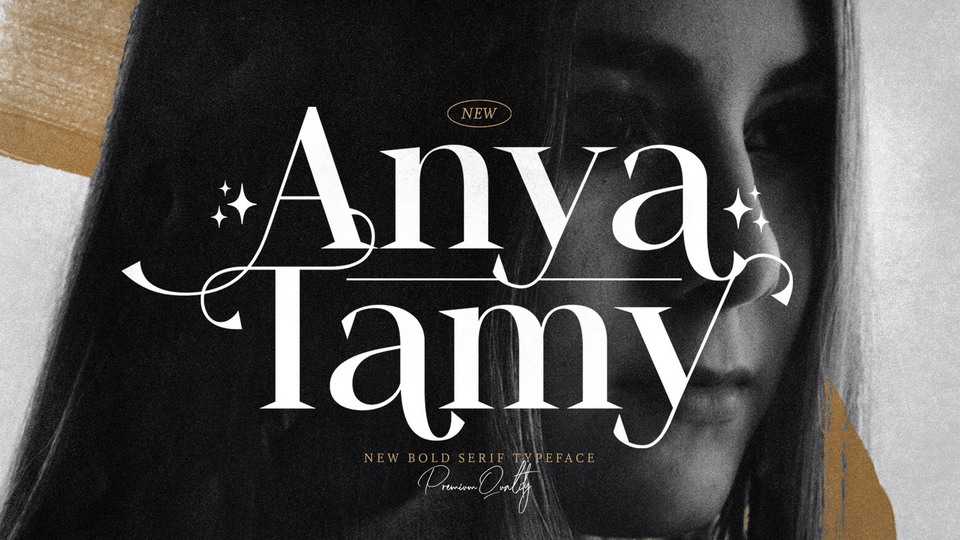
Download Anya Tamy font, an authentic modern serif typeface. Anya Tamy can easily be matched to an incredibly large set of projects, so add it to your creative ideas and notice how it makes them stand out.